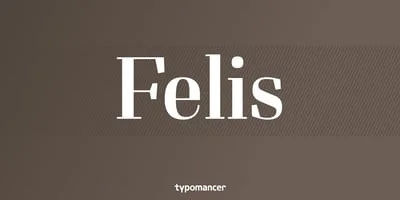
Felis Font
This graceful typeface is perfect for pet stores, veterinary clinics, cat cafes, animal shelters, feline rescue organizations, pet grooming services, cat food brands, animal behaviorist practices, pet photography studios, feline health products, cat toy manufacturers, and companion animal services. The font's elegant design makes it ideal for projects that celebrate feline grace, independent spirit, and the mysterious charm of cats who move through life with natural poise and intuitive wisdom.
Felis Font is exciting because it embodies feline elegance and mysterious grace through its sleek letterforms and cat-inspired character structure. The font's fluid curves and balanced proportions create an atmosphere of sophistication, independence, and natural beauty, making it perfect for brands that want to convey refinement, intuition, and the captivating allure of feline companions. Its graceful personality ensures instant charm while maintaining excellent readability across various pet-related applications.
The Felis Font family includes multiple feline variations: Light Whisker, Regular Purr, Medium Prowl, Bold Pounce, and Black Panther weights, each available in standard and italic versions. Special cat editions feature paw alternates, whisker ornaments, and feline symbols that enhance the font's pet appeal, providing designers with comprehensive tools for creating authentic cat-focused communications.
Embrace feline sophistication with Felis Font – a typeface that represents grace, independence, and natural elegance. Whether you're developing pet industry branding, veterinary materials, or animal welfare campaigns, this font delivers the graceful presence and feline charm your projects need while ensuring exceptional performance and elegant impact across all pet and feline applications.